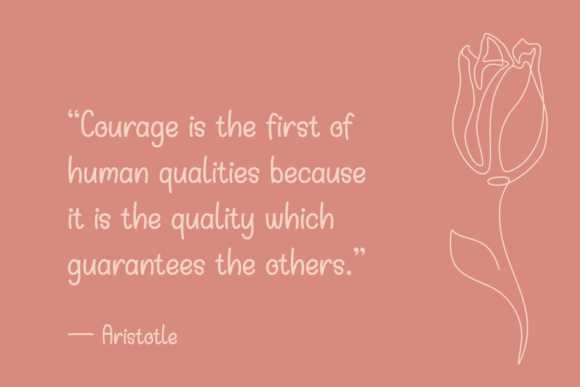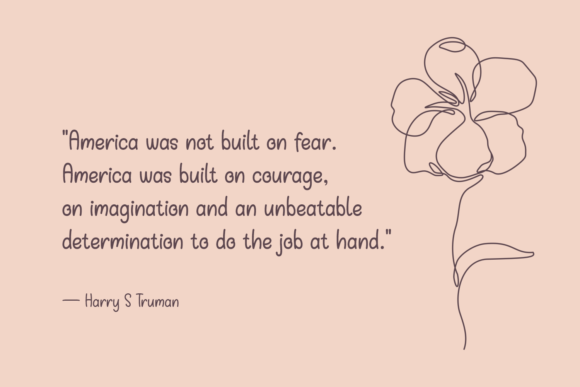
Introduction to Simple Courage Font
Simple Courage is a clean and simple handwritten font.
Why Choose Simple Courage Font?
Simple Courage Font offers exceptional quality and versatility, making it a valuable addition to your design toolkit. Whether you’re creating for personal projects or commercial use, Simple Courage Font delivers professional results.